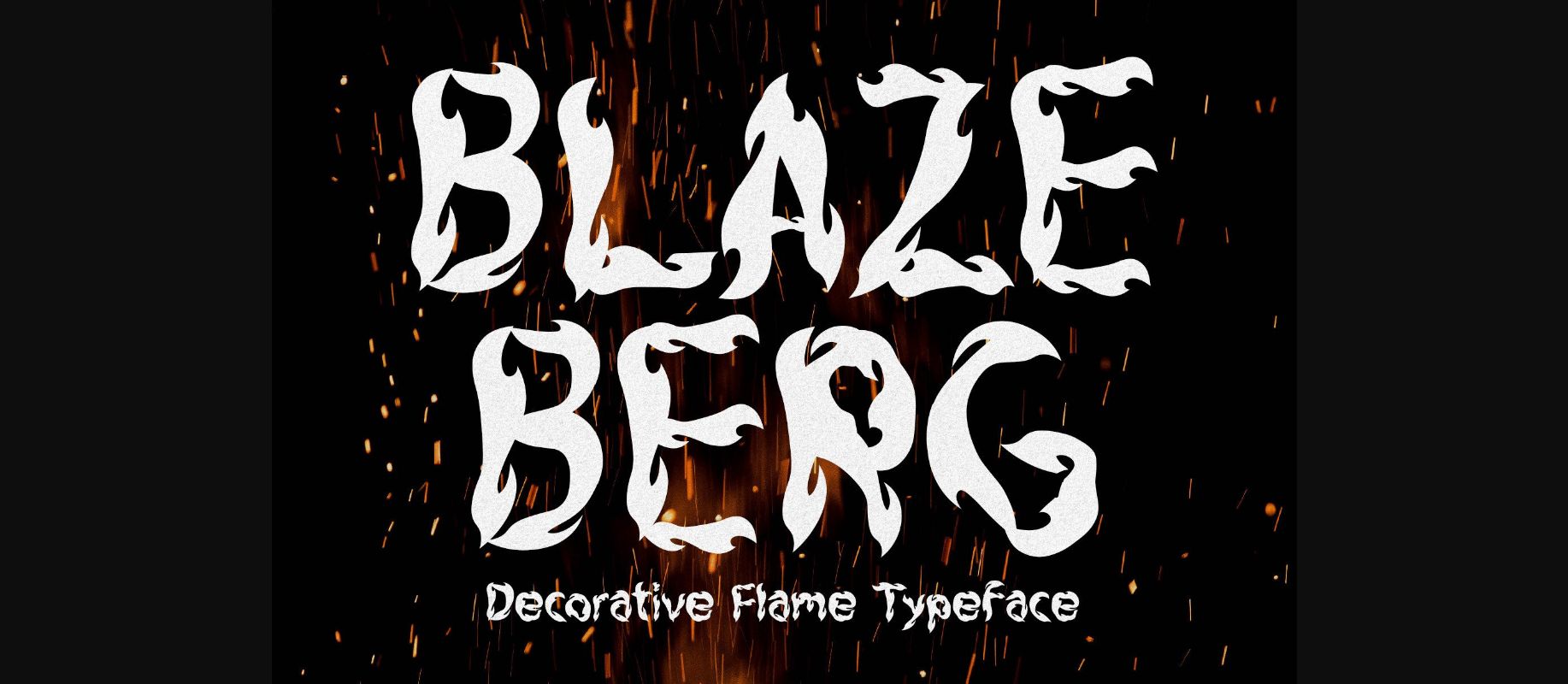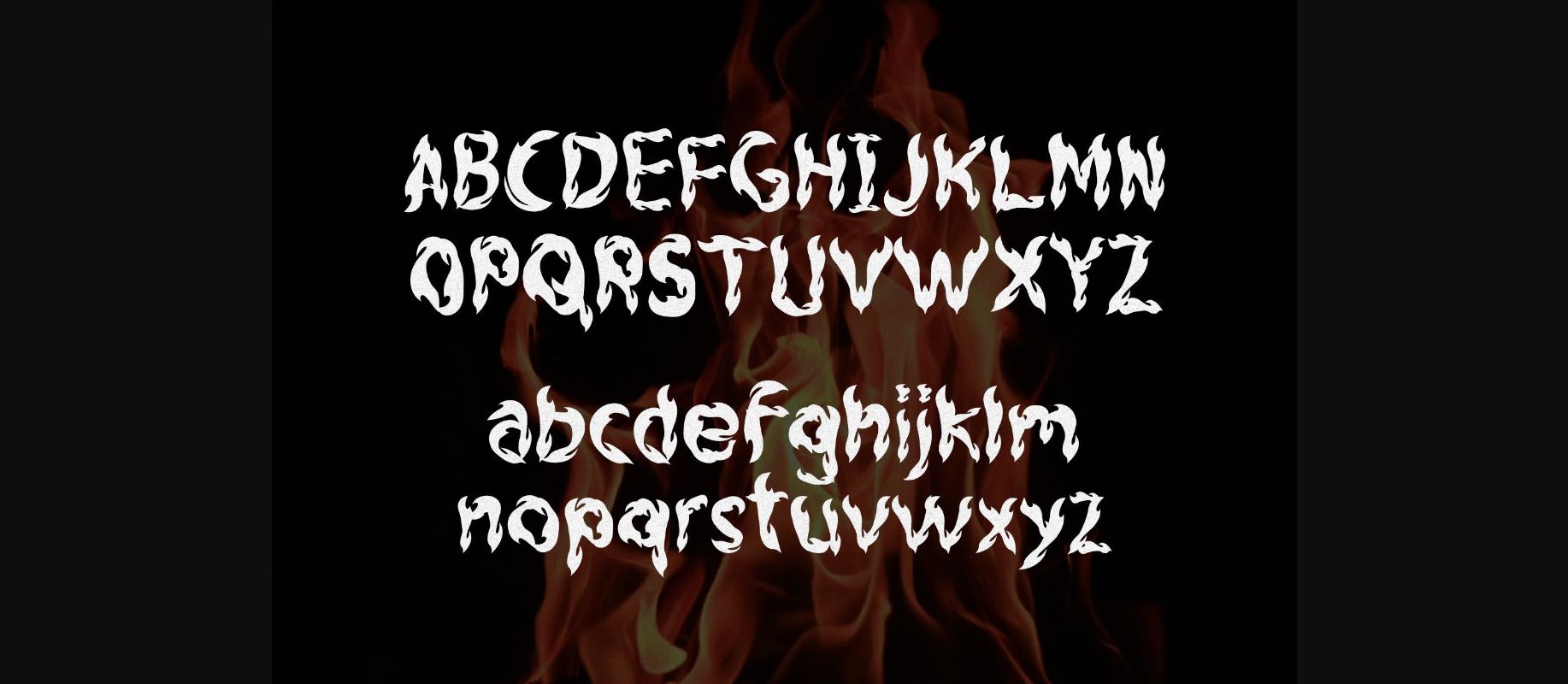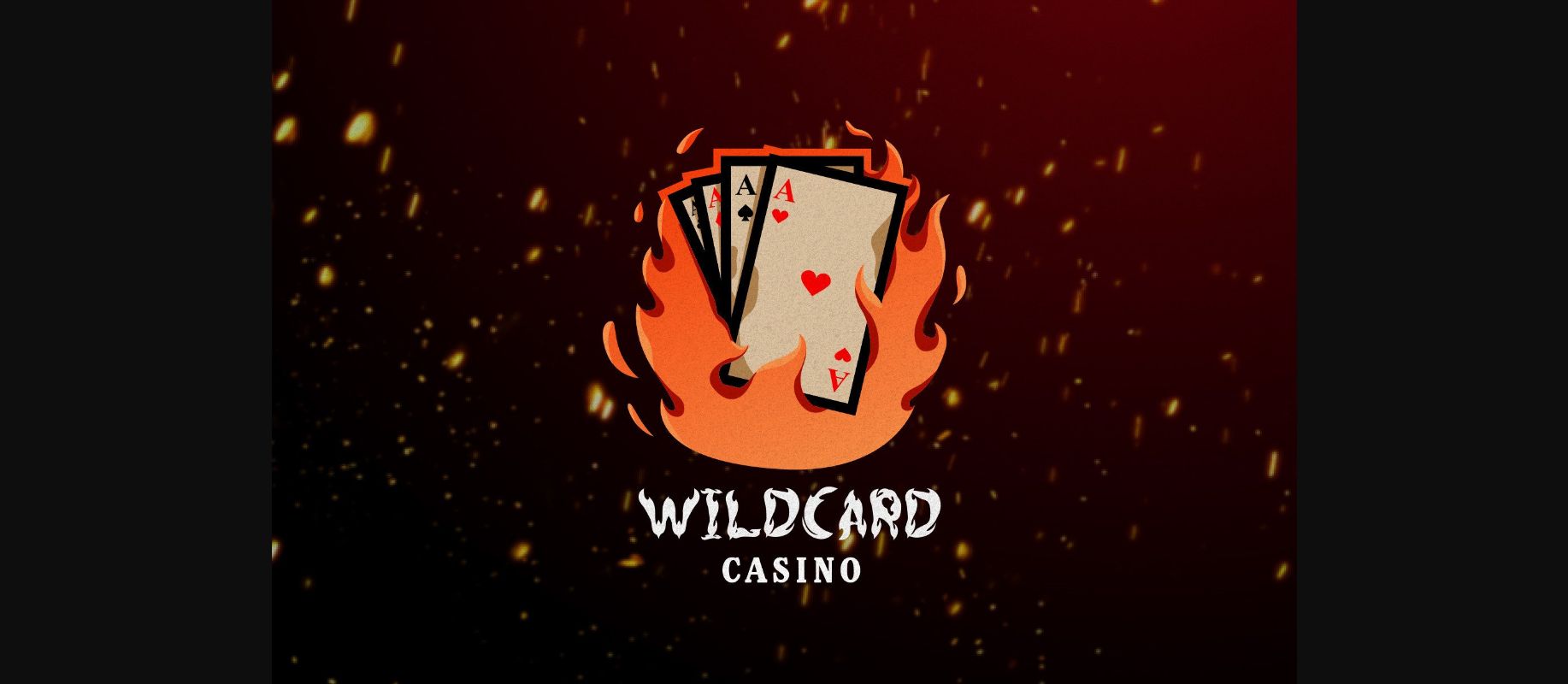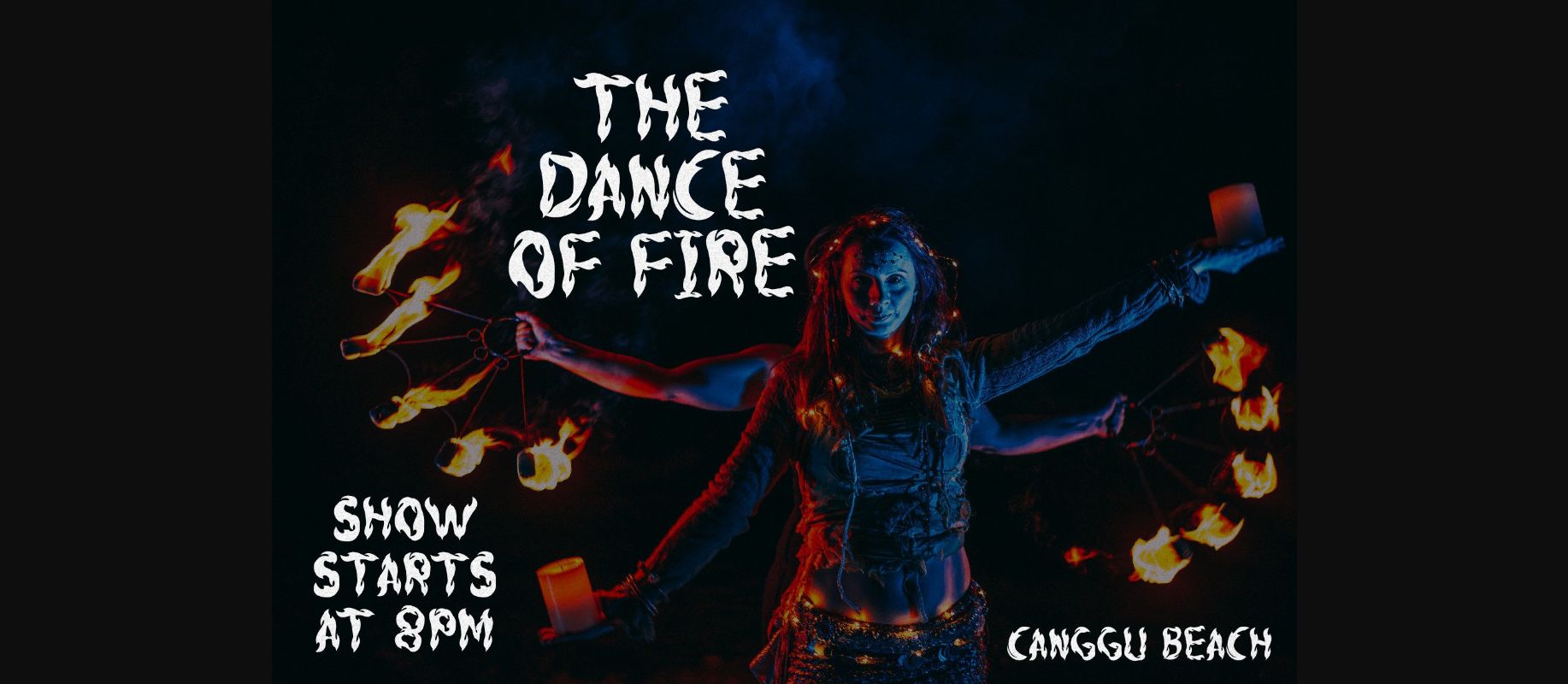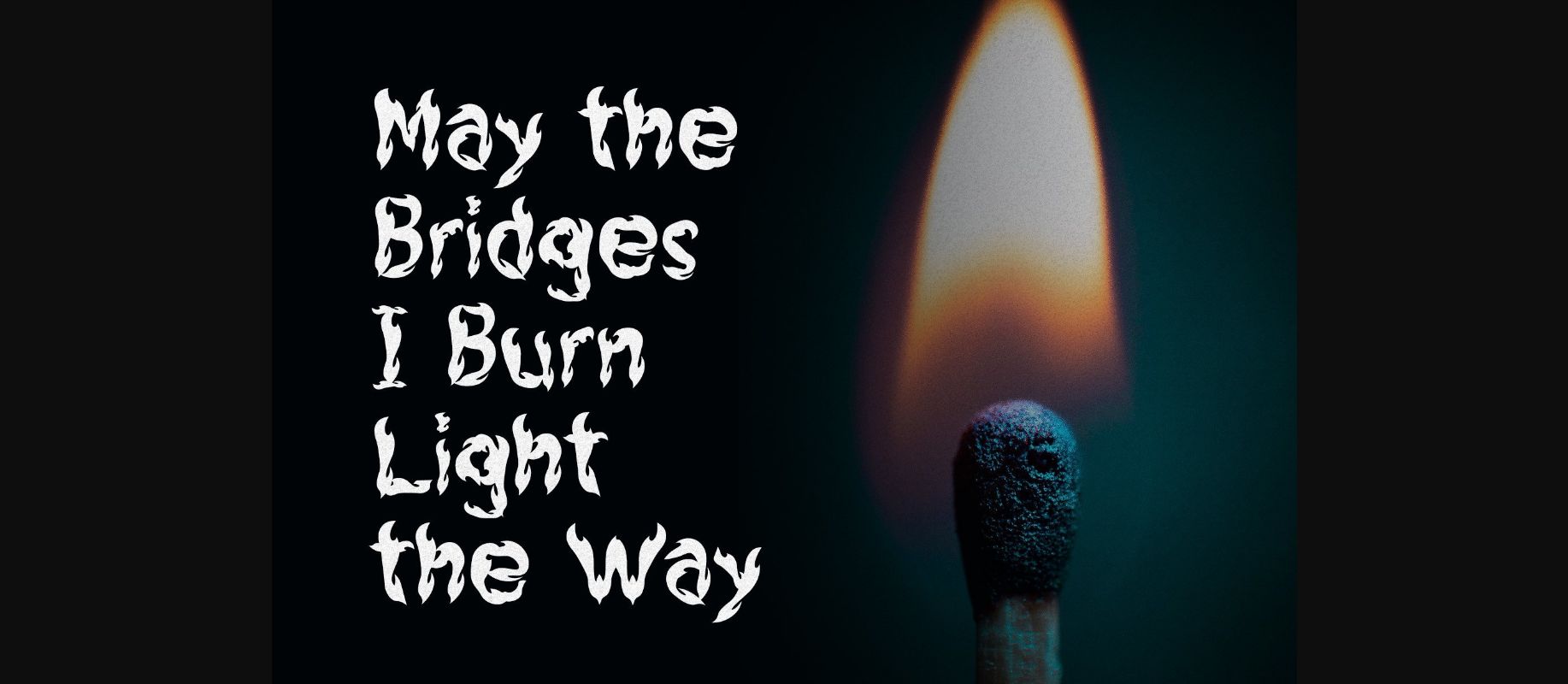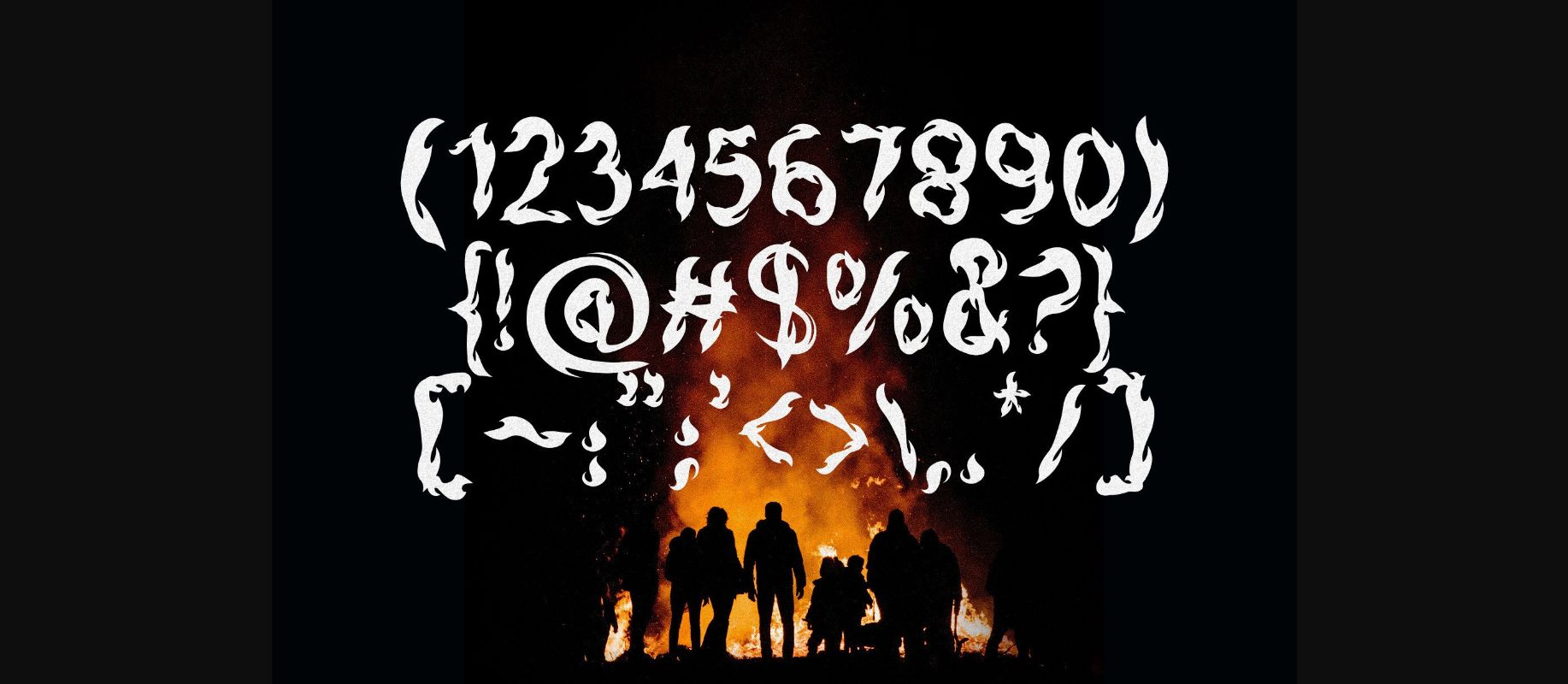
About Blazeberg Font
Blazeberg is a flame-inspired decorative typeface suitable for multiple purposes. Use it for branding, banners, greeting cards, editorials, quote images, music posters, stationery, packaging, design labels, etc. The possibilities are endless! Thanks to its unique shape and curves, Blazeberg stays legible even in small sizes.